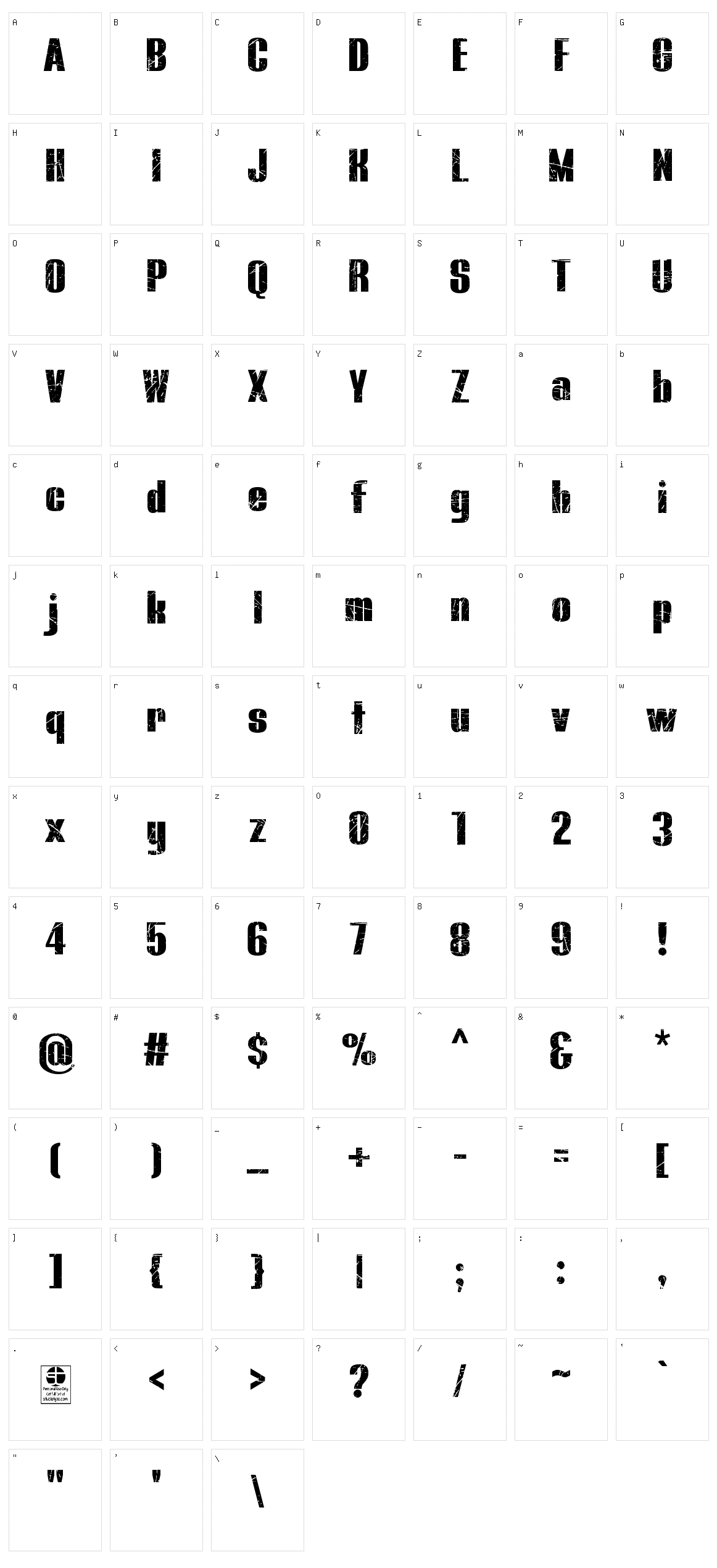
The free font Bluefish Scratched is carefully designed by Studio Typo, showcasing a thoughtful balance of creativity and usability and falls under the Eroded font style. When you download the ZIP file, it contains only 272.05 KB of font files, making it lightweight and quick to download. Please review the license details below to understand permitted usage and distribution rights. If license information is not available, we recommend using this font for personal projects only or contacting the author directly for commercial usage permissions.